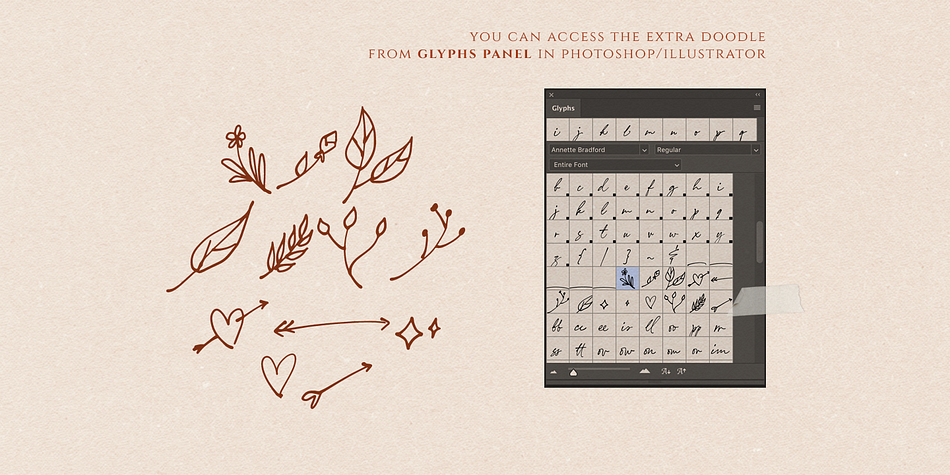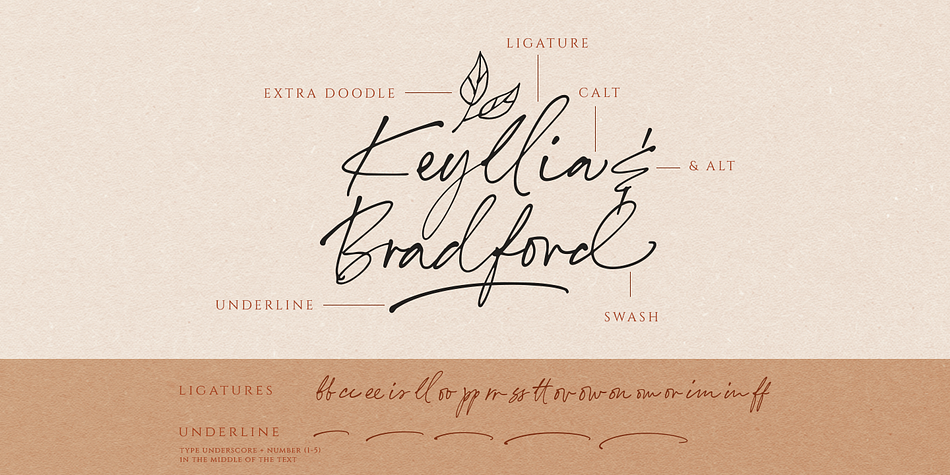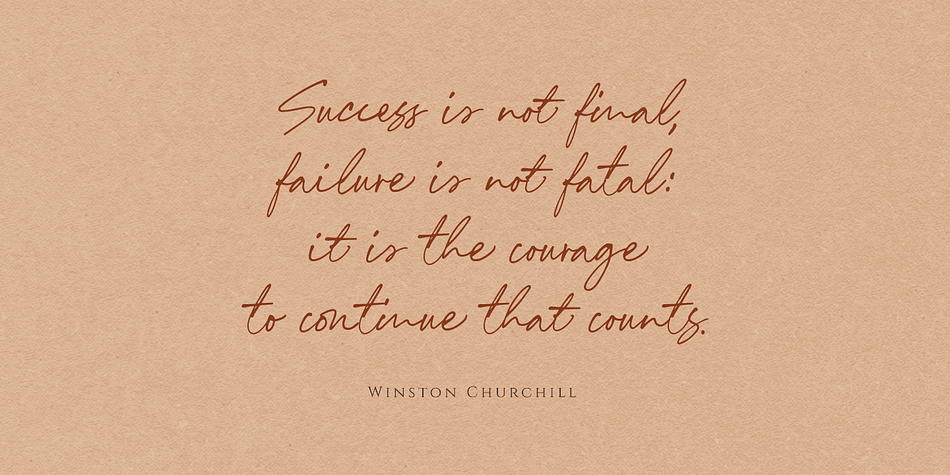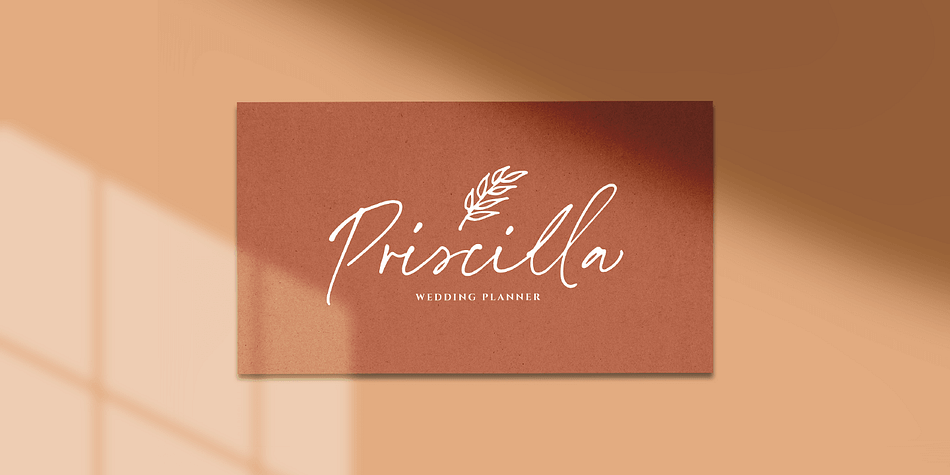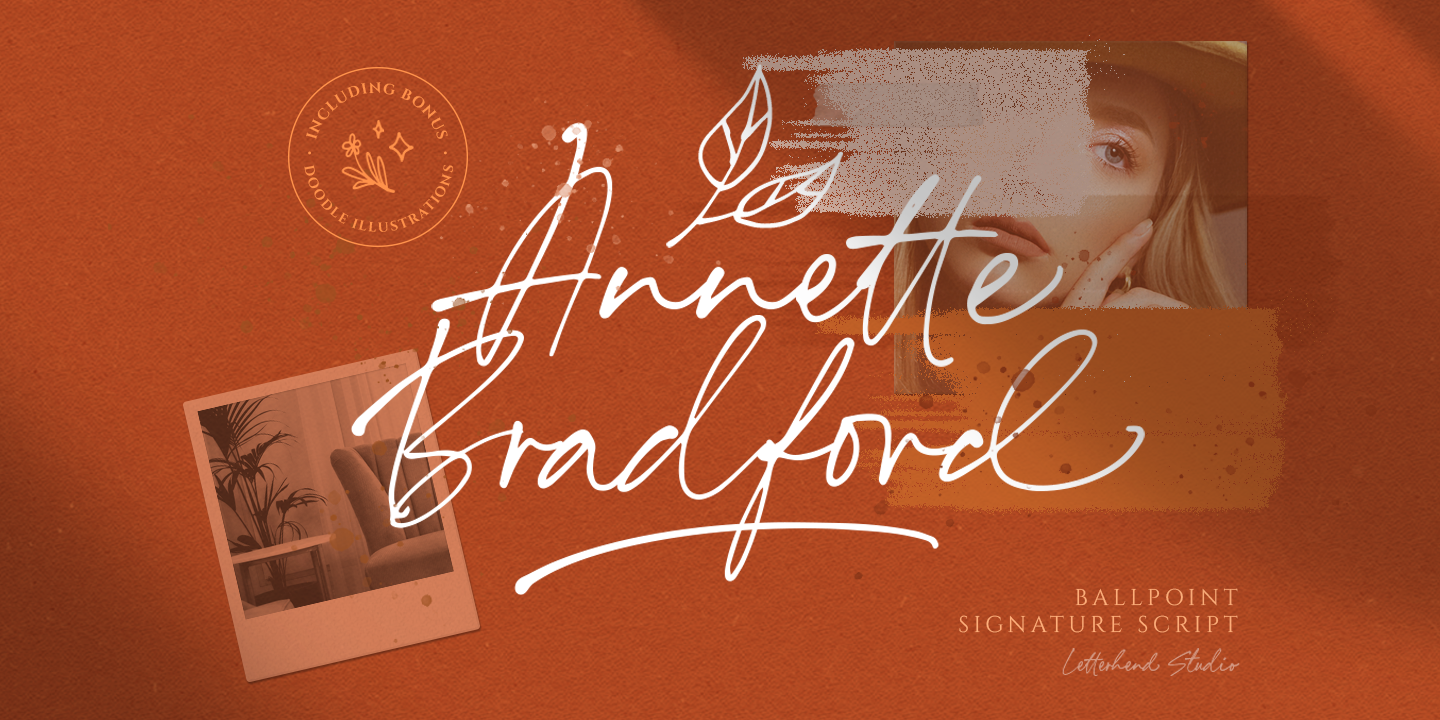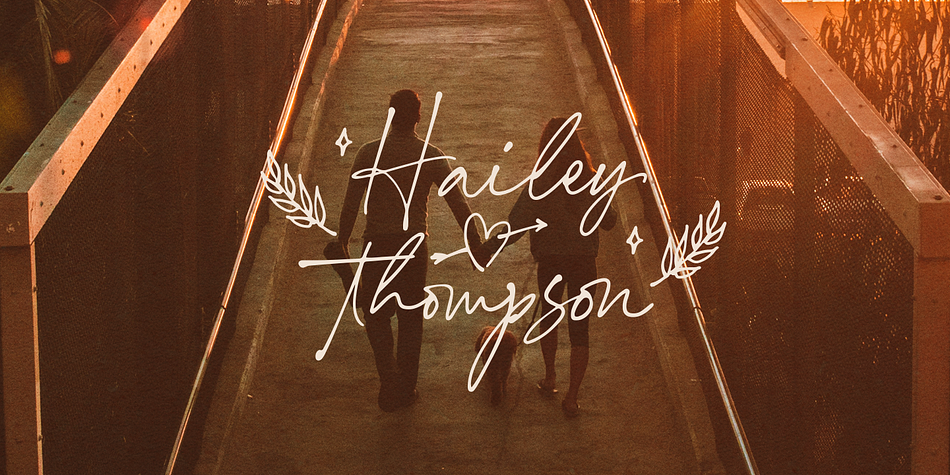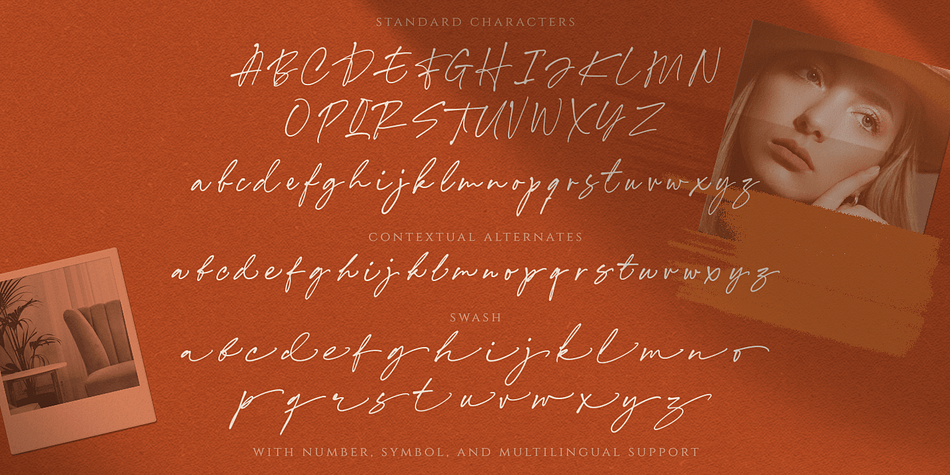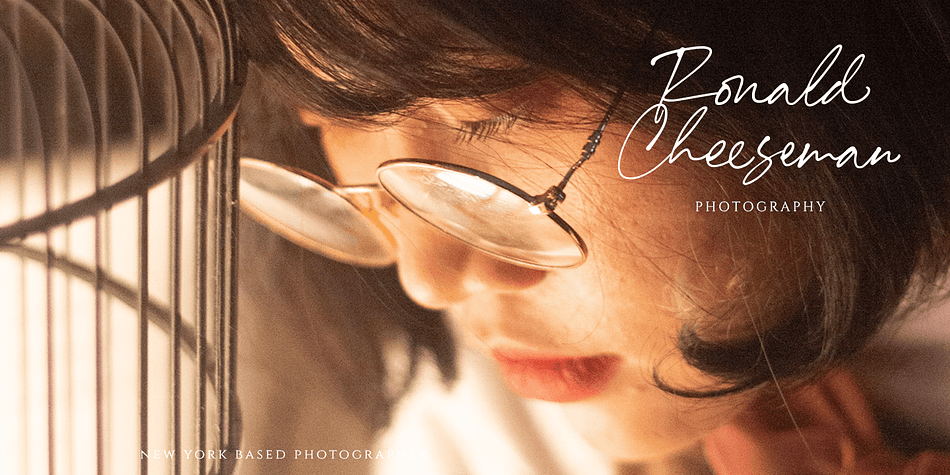
Designed by Hendry Juanda, Annette Bradford is a modern calligraphy and script font published by Letterhend Studio.
Introducing, Annette Bradford - Ballpoint Signature Script. This typeface made from a natural ballpoint handwriting, so if you need digital signature or natural hand writing for quotes, this is the perfect typeface for you! This font perfectly made to be applied especially in logo, and the other various formal forms such as invitations, labels, logos, magazines, books, greeting / wedding cards, packaging, fashion, make up, stationery, novels, labels or any type of advertising purpose.
- ligatures
- alternates
- extra doodle (in glyphs panel)